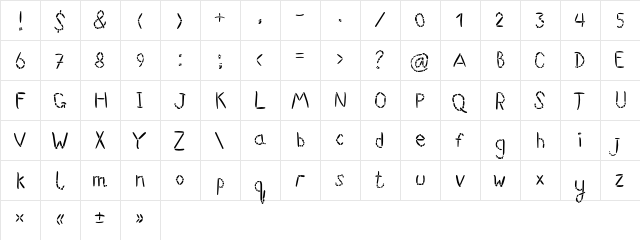
FFU SuwiKisu Regular
| Foundry | Myznik Egor (GBand), tech. part by Jovanny Lemonad |
| Designer | Myznik Egor |
Design Context for FFU SuwiKisu Typeface
FFU SuwiKisu is a composed and adaptable typeface that performs quietly and consistently across a wide range of design contexts.